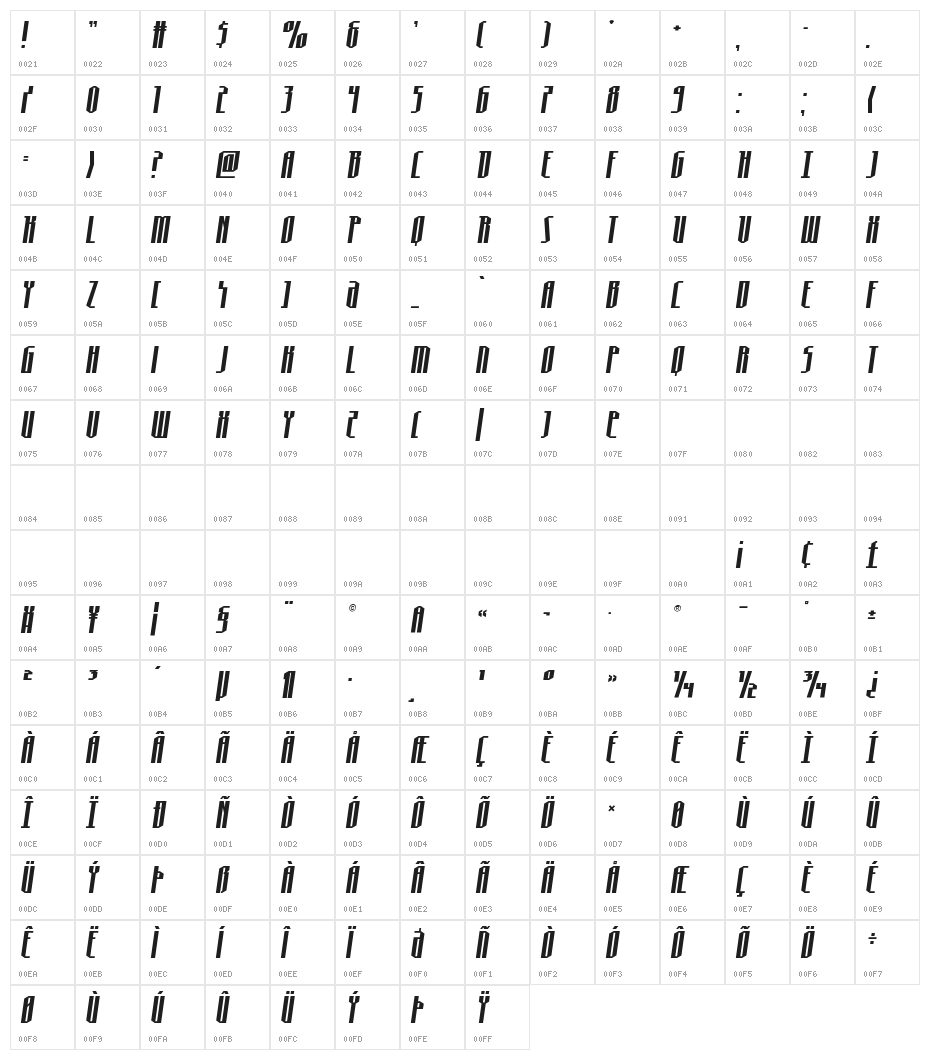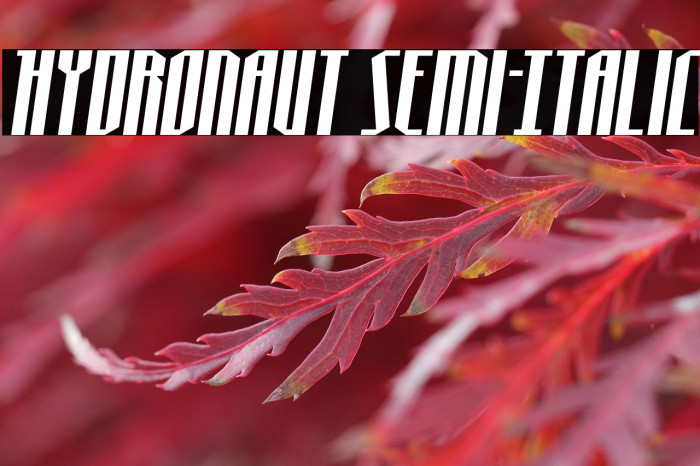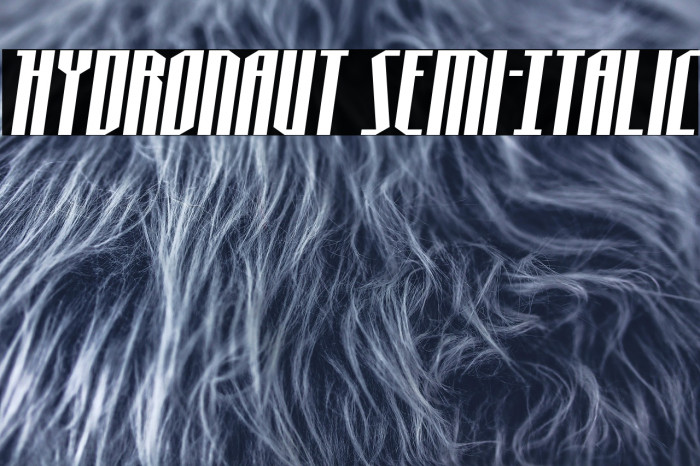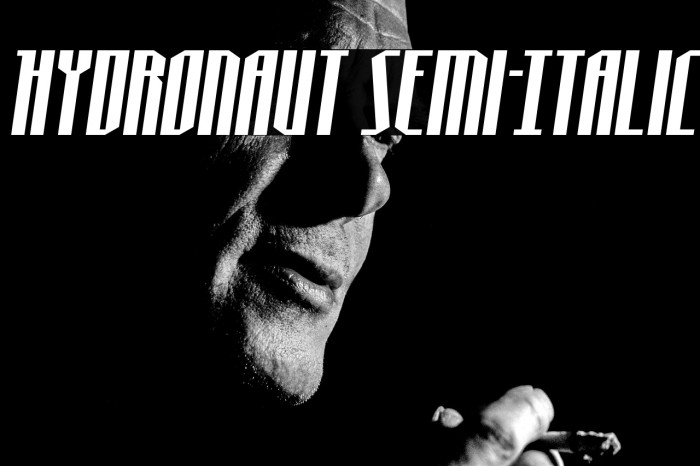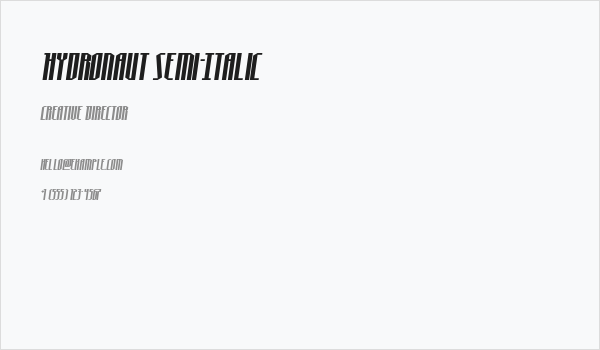
Hydronaut Semi-Italic Font
Hydronaut Semi-Italic Description
This font features a bold and dynamic design with a futuristic flair. The characters are sharply angled and elongated, giving them a sleek and modern appearance. The strokes are consistent in width, creating a uniform look across all characters. The italic style adds a sense of motion and energy, making it ideal for projects that require a strong visual impact. The uppercase and lowercase letters maintain a cohesive style, while the numerals and special characters are designed to match the overall aesthetic. This font is perfect for creating eye-catching headlines, posters, and branding materials.
| Proposed Projects | Ideal for futuristic branding, sci-fi posters, dynamic headlines, and modern logos. |